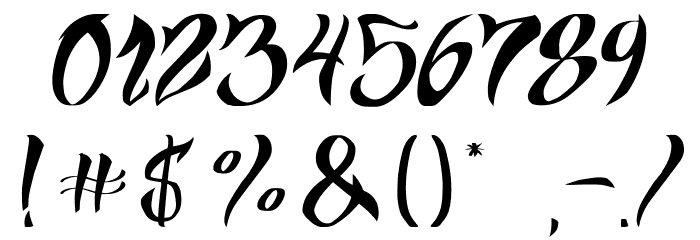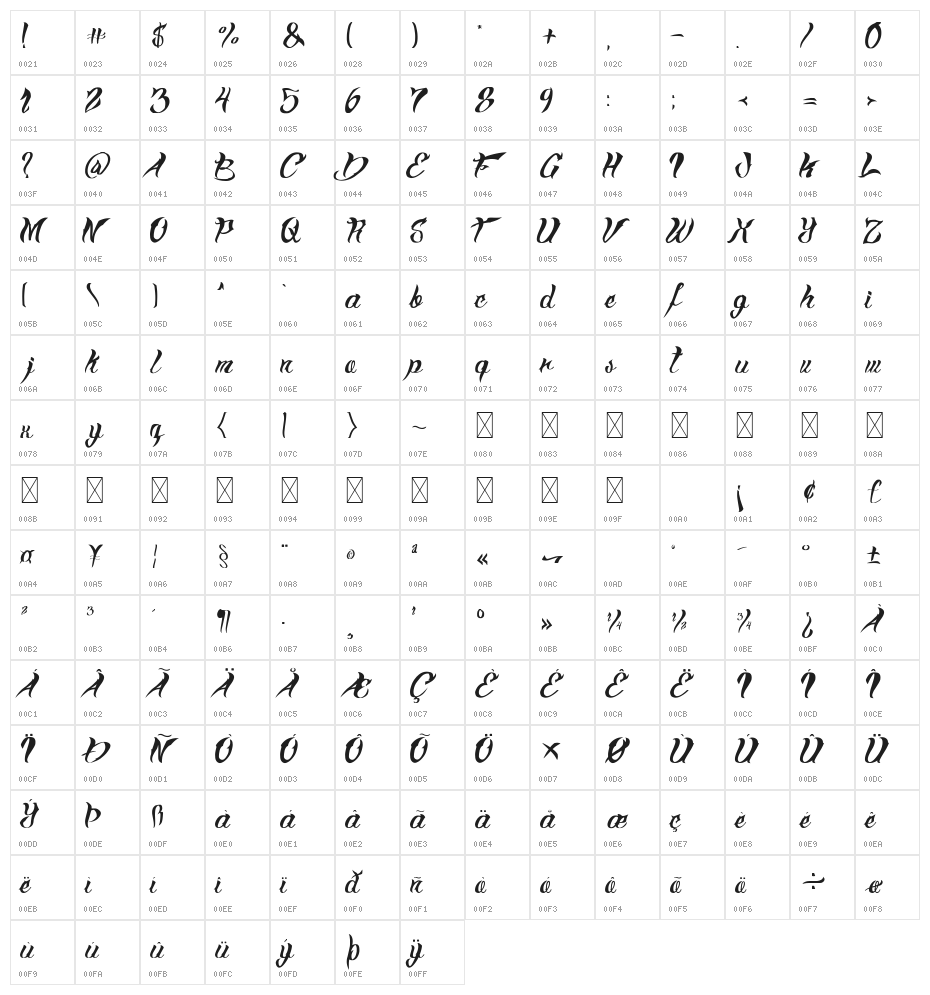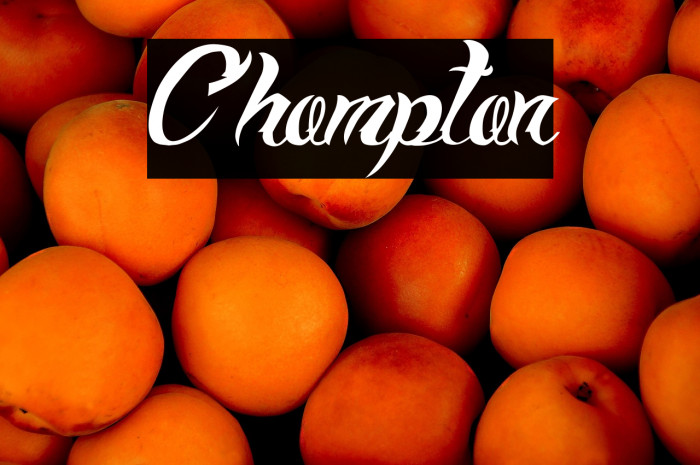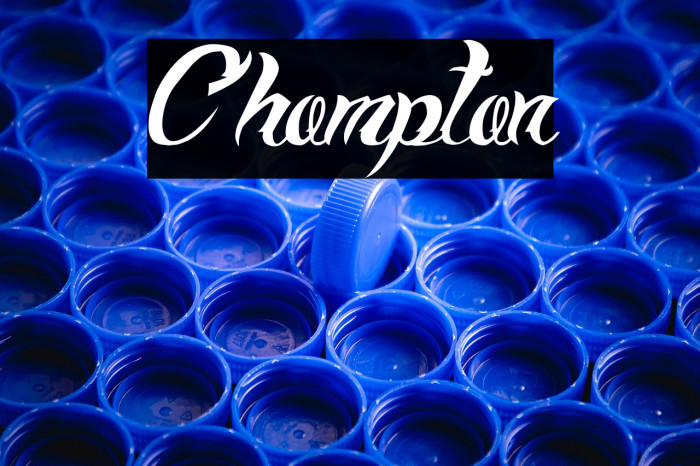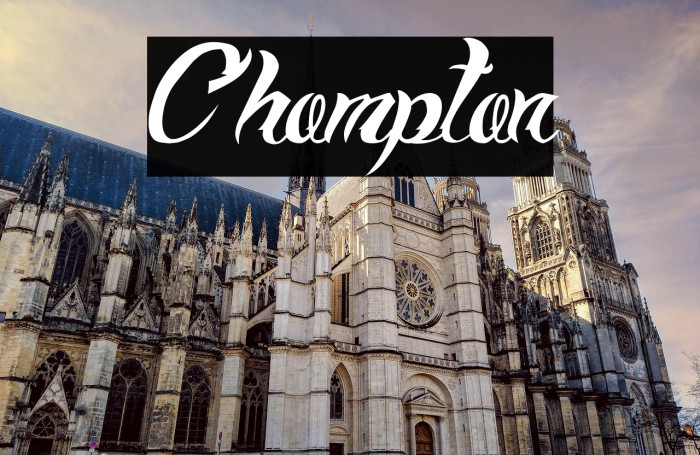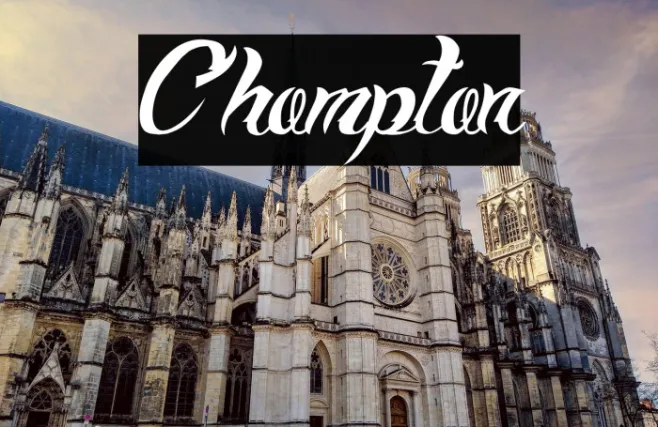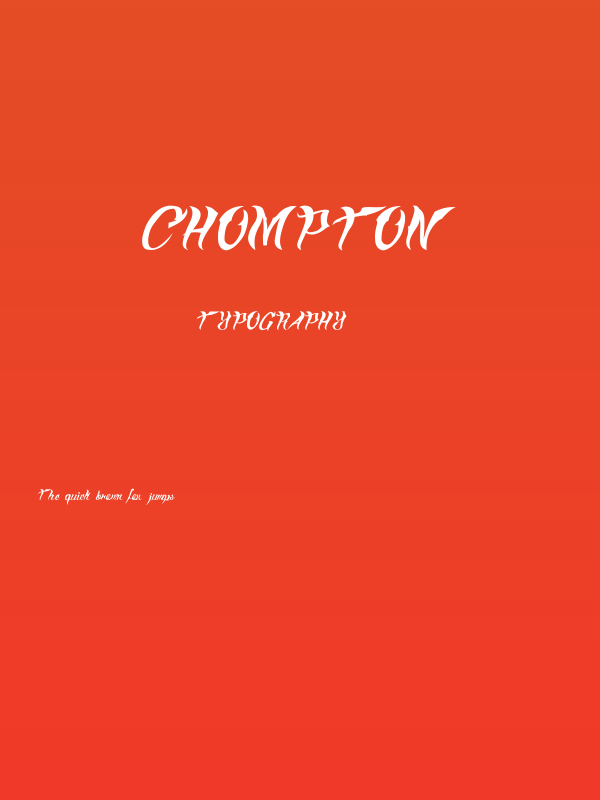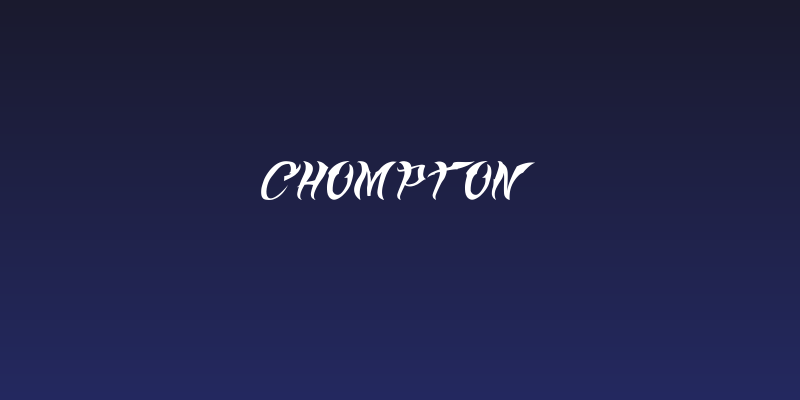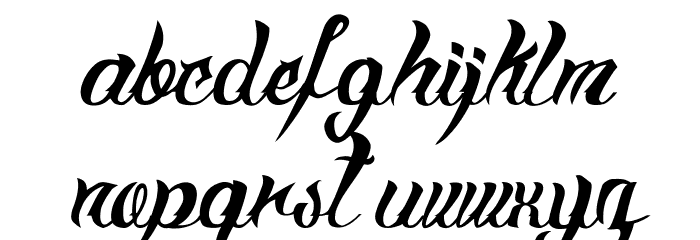
Chompton Font
Chompton Description
This font exhibits a bold, flowing script style with a strong calligraphic influence. The characters are highly stylized, featuring dramatic curves and flourishes that give it a dynamic and energetic appearance. The uppercase letters are particularly ornate, with sweeping lines and exaggerated serifs that enhance its decorative quality. The lowercase letters maintain a consistent style, with smooth connections and elegant loops. Numbers and special characters follow the same aesthetic, ensuring a cohesive look across all elements. This font's unique design makes it stand out, ideal for creating eye-catching text that demands attention.